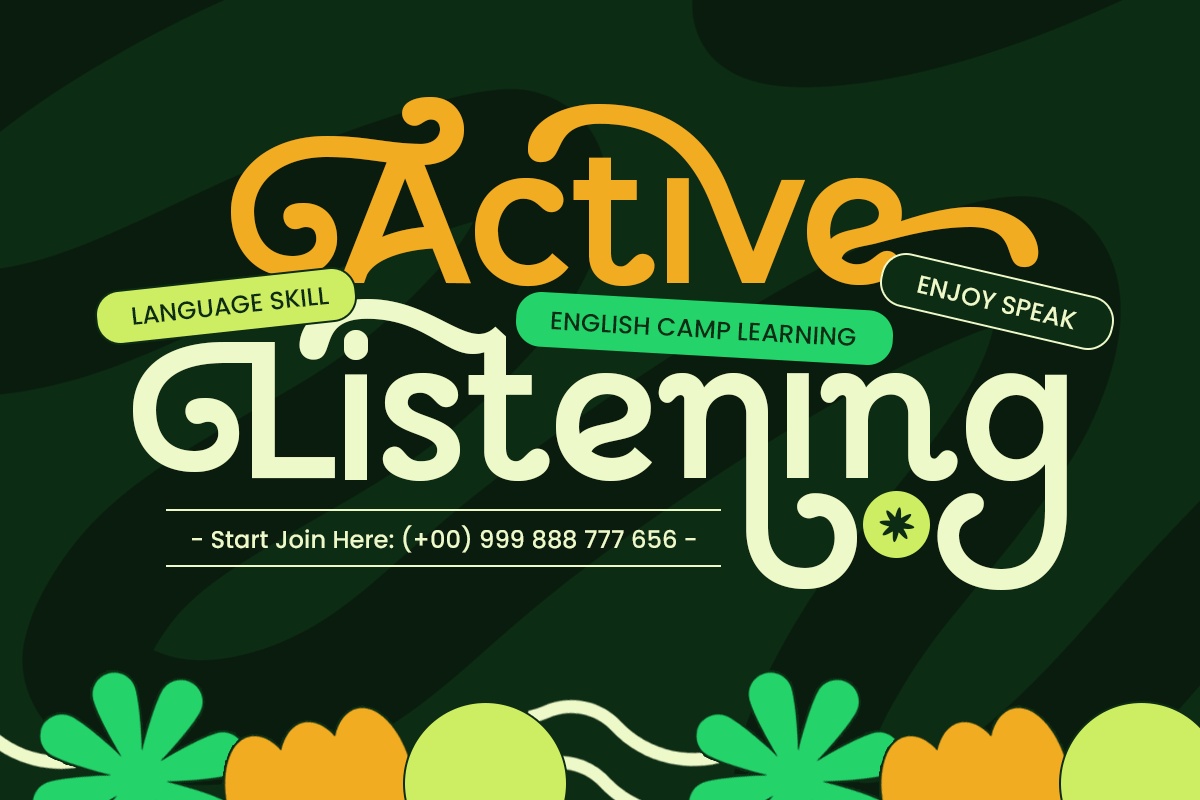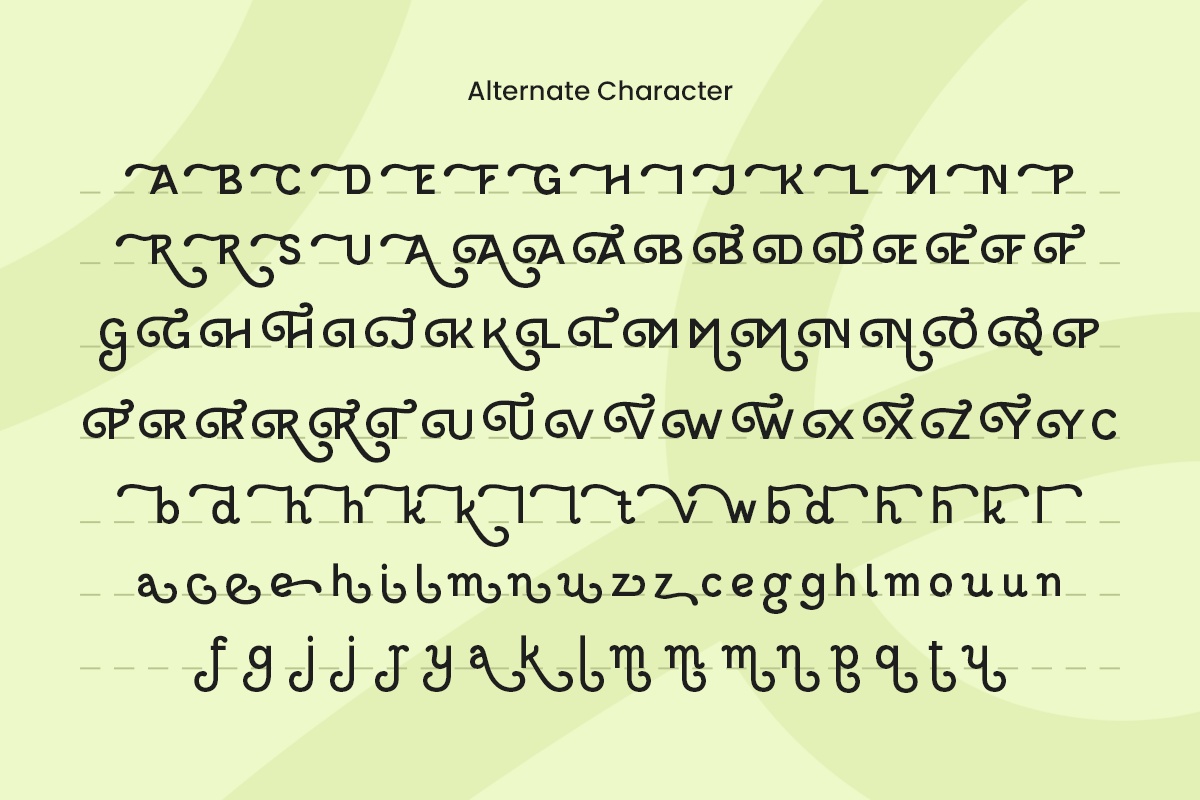
Fandy Creative Swash Fancy
Fandy is a creative swash fancy font designed to infuse your designs with energy, elegance, and a playful twist. Featuring flowing swashes and artistic letterforms, Fandy is ideal for logos, branding, packaging, posters, and stylish social media graphics.
This font delivers a bold personality while retaining a refined charm, making it a versatile choice for both casual and upscale projects. Whether you’re creating a modern boutique logo or a vibrant event poster, Fandy ensures your message stands out with flair.
Fandy Creative Swash Fancy Sans-Serif Font
Fandy Creative Swash Fancy